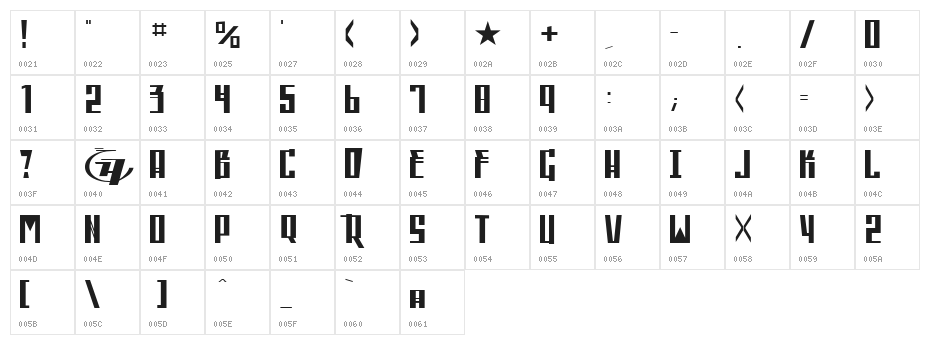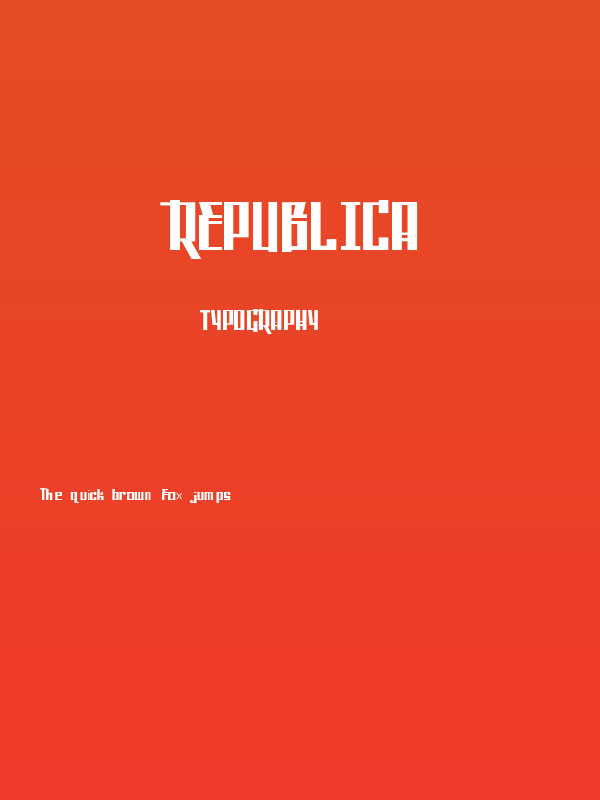
Republica Font
Republica Description
This font features a bold and geometric style with sharp, angular edges and a strong presence. The uppercase letters are particularly striking, with a blocky and robust appearance that commands attention. The lowercase letters maintain the same geometric aesthetic, providing a cohesive look across the typeface. Numbers and special characters are designed with the same boldness and angularity, ensuring consistency throughout. The overall design is modern and assertive, making it suitable for impactful and eye-catching designs.
| Proposed Projects | Ideal for posters, logos, branding, and any design requiring a strong, modern impact. |